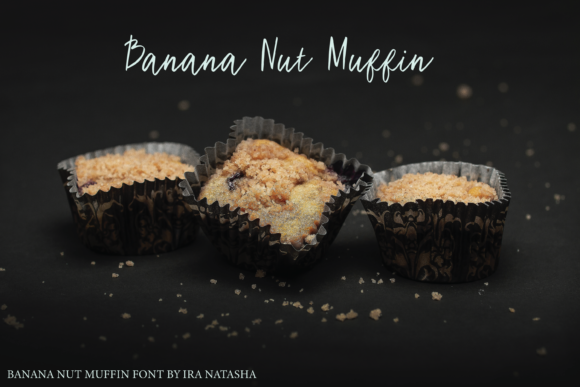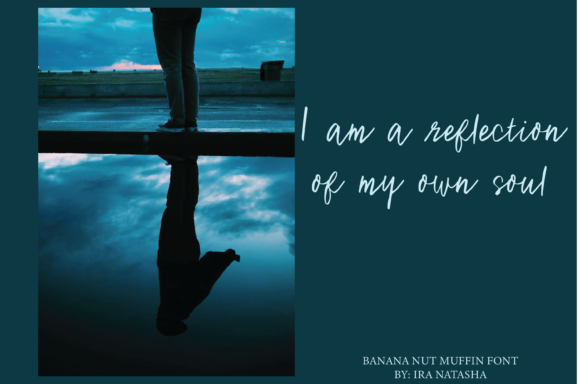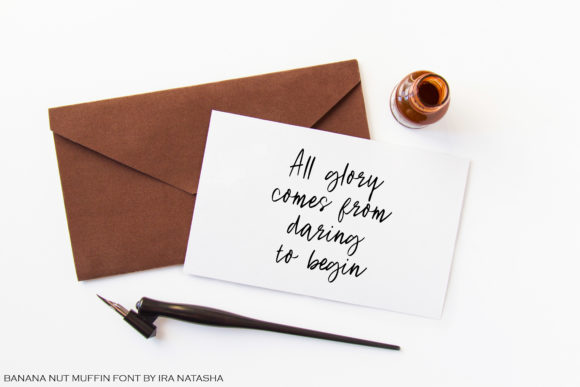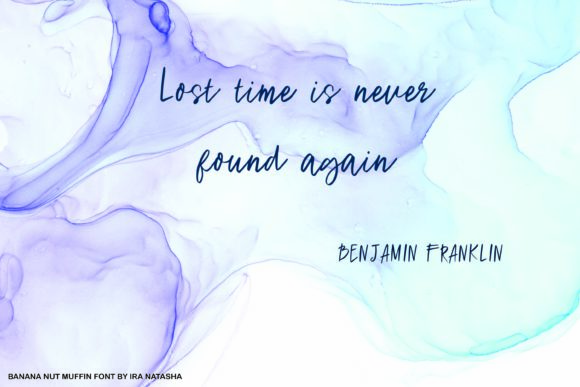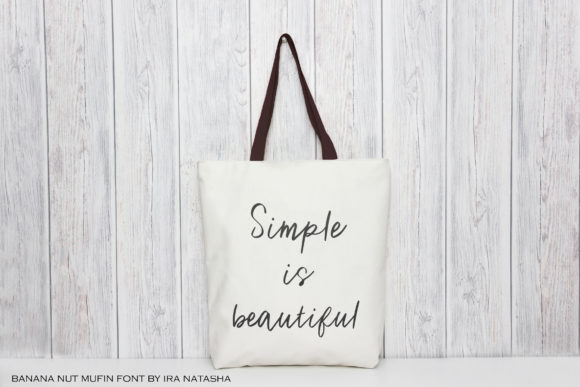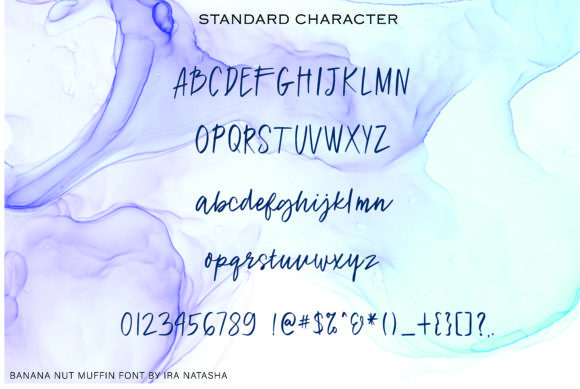
Banana Nut Muffin Font
Banana Nut Muffin embodies fun, quirkiness and authenticity. This enchanting handwritten font will turn any creative idea into a true standout.